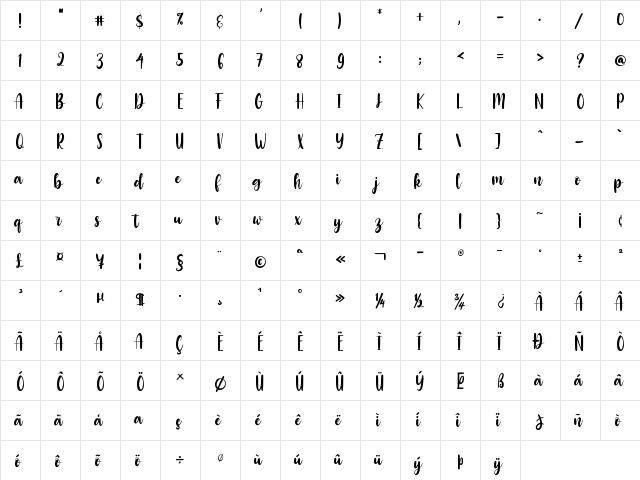
Raspberry Regular
Design Context for Raspberry Typeface
Raspberry is a composed and adaptable typeface that performs quietly and consistently across a wide range of design contexts.